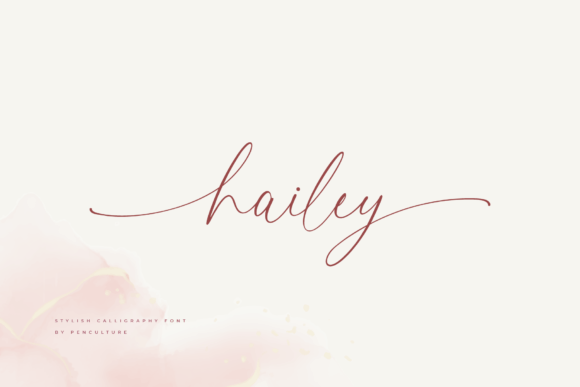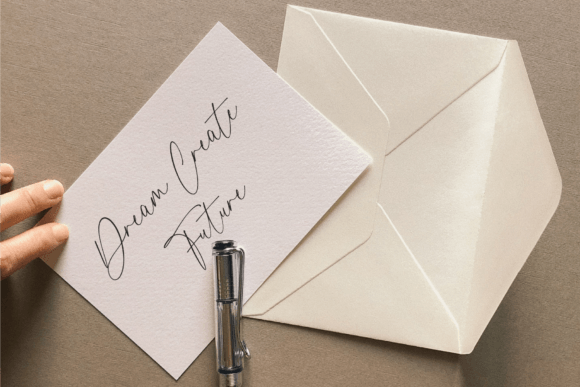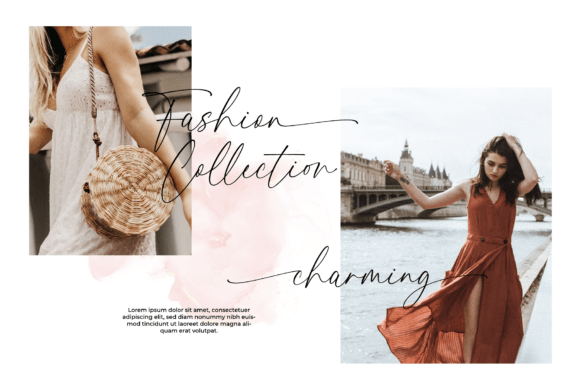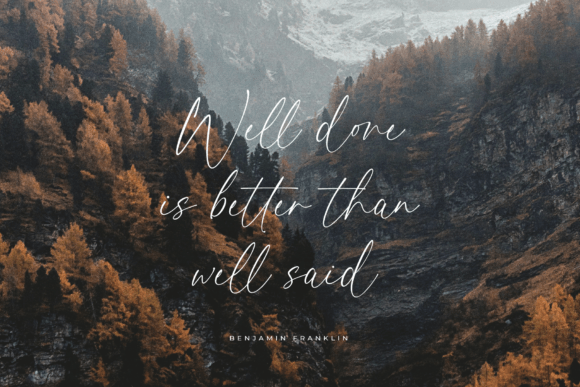
Hailey Font
About the Hailey Font
We are excited to introduce Hailey Font, a must-have typeface for any serious designer. Hailey is a modern calligraphy font that is perfect for wedding invitations, branding, logo, and many more creative projects. This font is PUA encoded, which means you can access all of the glyphs and swashes with ease!
Hailey’s elegant, yet slightly playful, personality makes it ideal for branding projects requiring a touch of sophistication, particularly logos, short headlines, and social media graphics. It also works well on wedding stationery and short-form invitations. However, its calligraphic nature makes it unsuitable for body text or UI elements where legibility is paramount. Avoid using it for large blocks of text or applications requiring high readability at small sizes.
Pairing Hailey effectively depends on the desired balance. For a more modern feel, consider pairing it with a clean sans-serif like Lato or Open Sans. To emphasize its calligraphic nature, a classic serif such as Garamond or a simple geometric sans-serif like Futura would create pleasing contrast. Avoid pairing it with other script fonts, as this can lead to visual clutter.
Its overall mood is best described as sophisticated and approachable; refined but not overly formal. Brands targeting a female demographic or those focused on beauty, fashion, or luxury goods would find Hailey particularly well-suited.
Hailey Font Usage Examples
Hailey Font Example